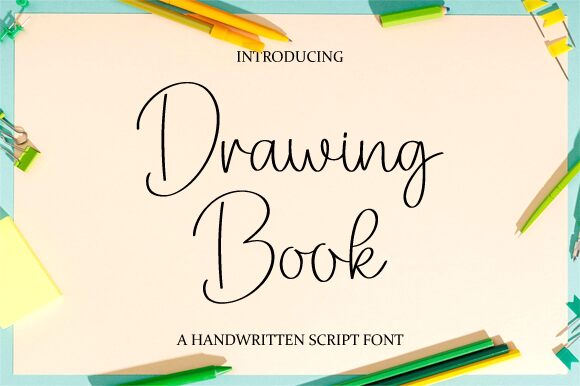
Drawing Book, crafted by Nirmala Creative, offers a breath of fresh air in the realm of typography with its light handwritten style. This font dances between casual elegance and artistic flair, capturing the essence of personal touch in each delicately formed letter. Its aesthetic appeal lies in its ability to mirror the spontaneity and charm of ink on paper, making it an ideal choice for designs that call for an intimate and bespoke feel.
The gentle curves and flowing motion lend Drawing Book a versatile nature, suitable for everything from heartfelt invitations to branding projects that require a dash of individuality. Whether it's gracing the pages of a children's book or adding character to editorial content, Drawing Book infuses a sense of creativity and warmth into any project it touches.